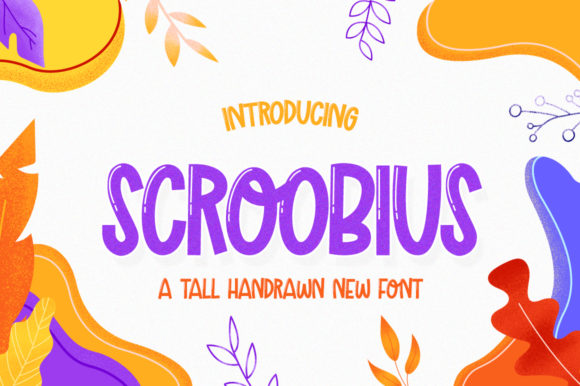
Scroobius Font
Introducing Scroobius, the fun and friendly display font that will add a touch of whimsy to your designs. With its playful and childlike charm, Scroobius is perfect for any project that needs a bit of a smile—think kids' party invitations, classroom posters, or eye-catching social media graphics.
But don't let its playful appearance fool you—Scroobius is also incredibly versatile. Its unique character gives it a distinctive look that will make your designs stand out from the crowd. Whether you're creating a logo for a children's brand or designing a website for a school, Scroobius is sure to make a lasting impression.